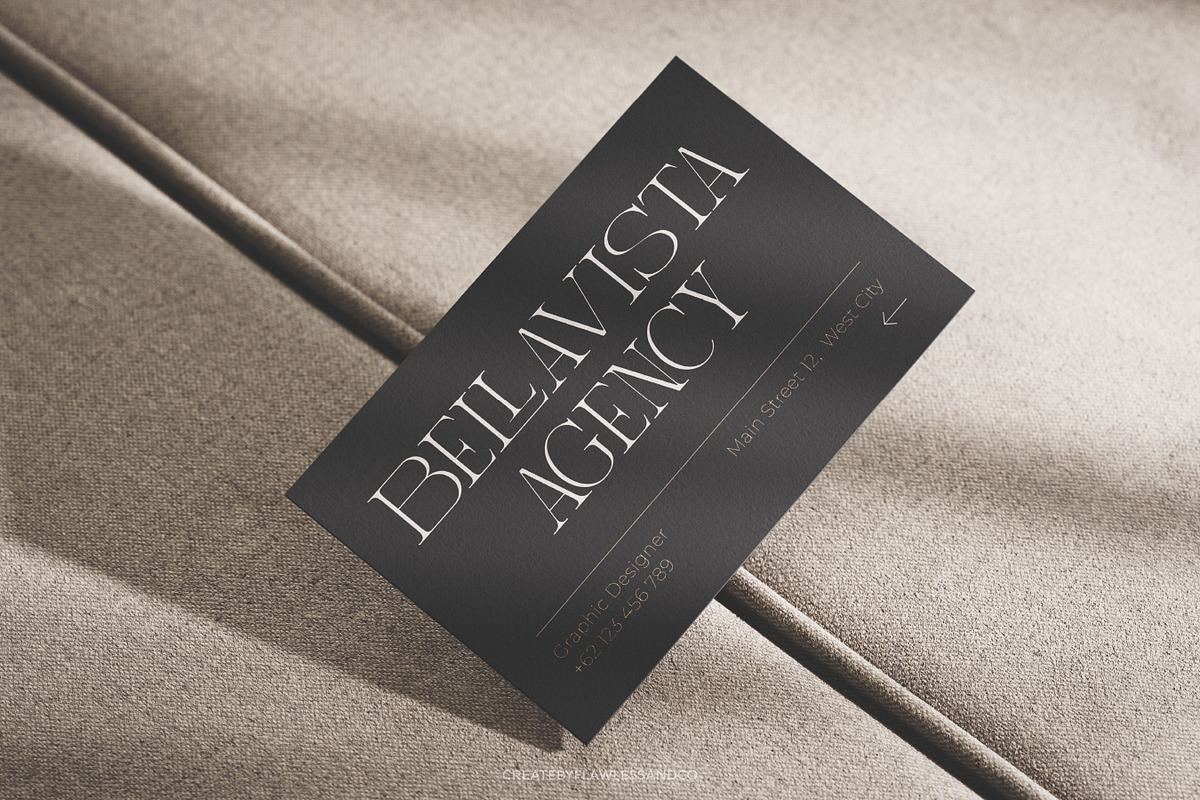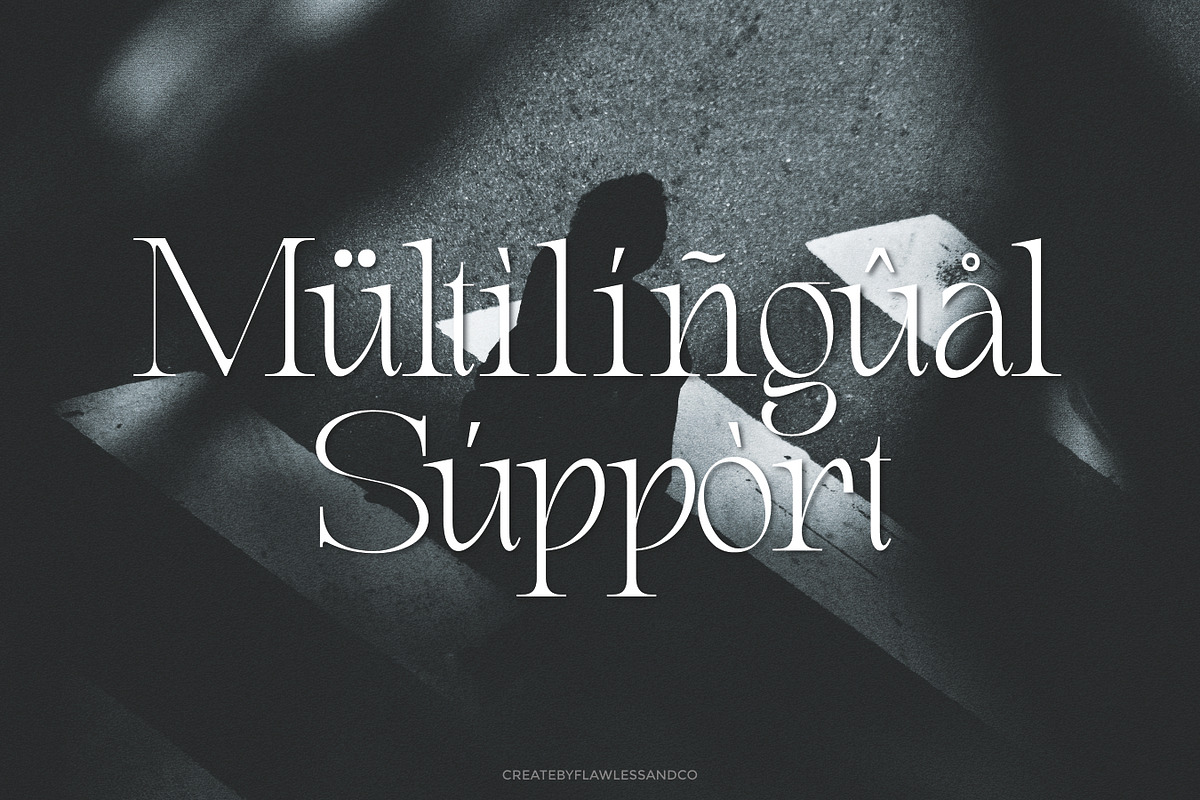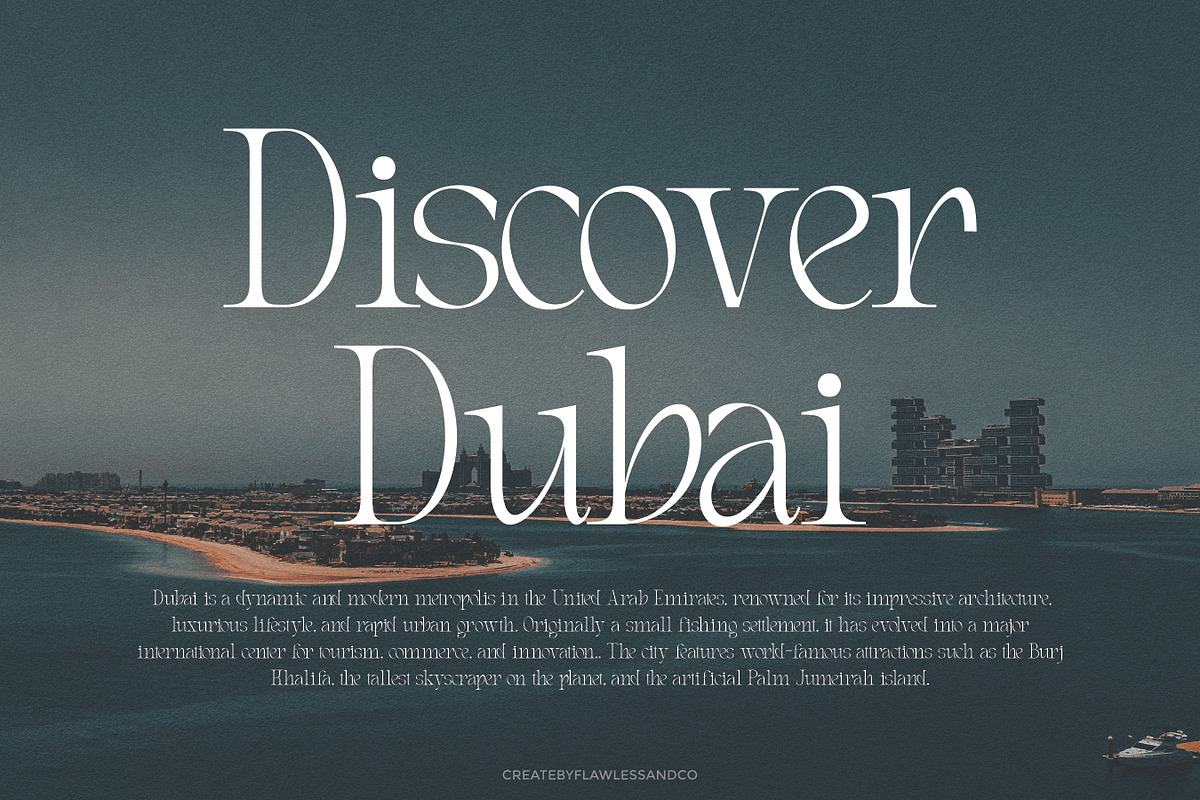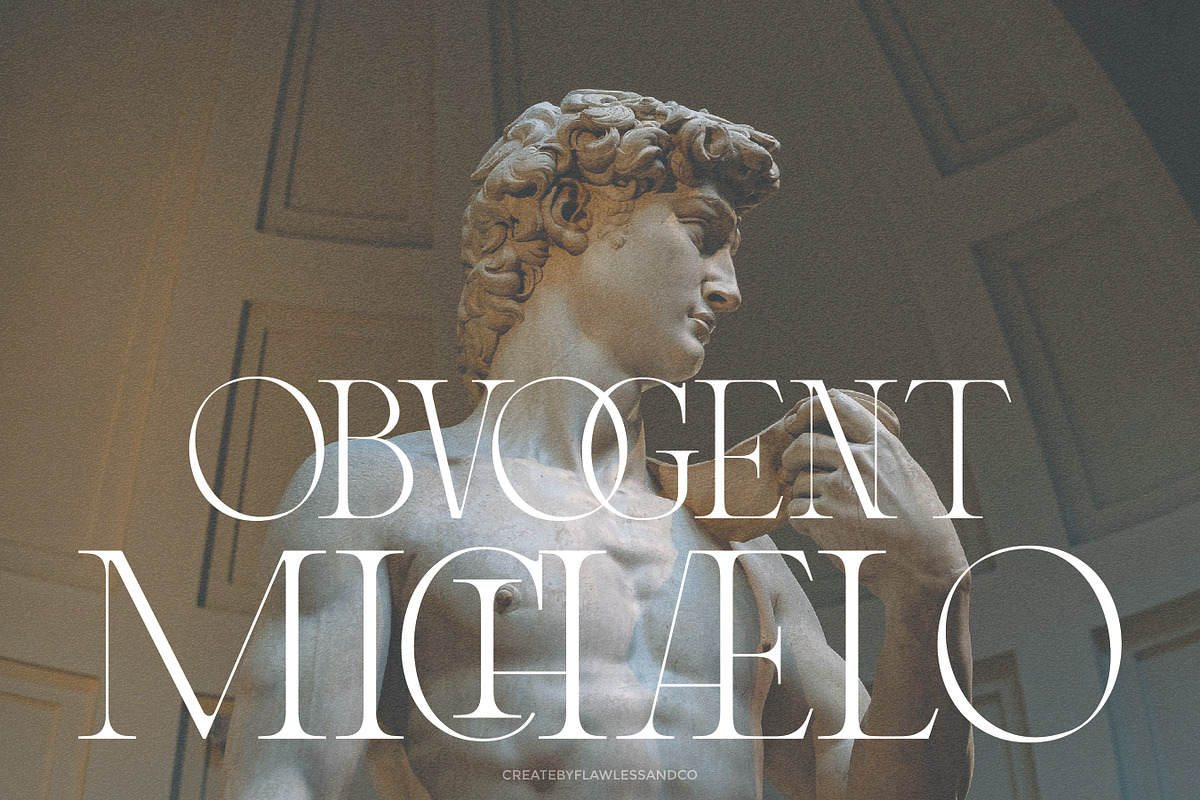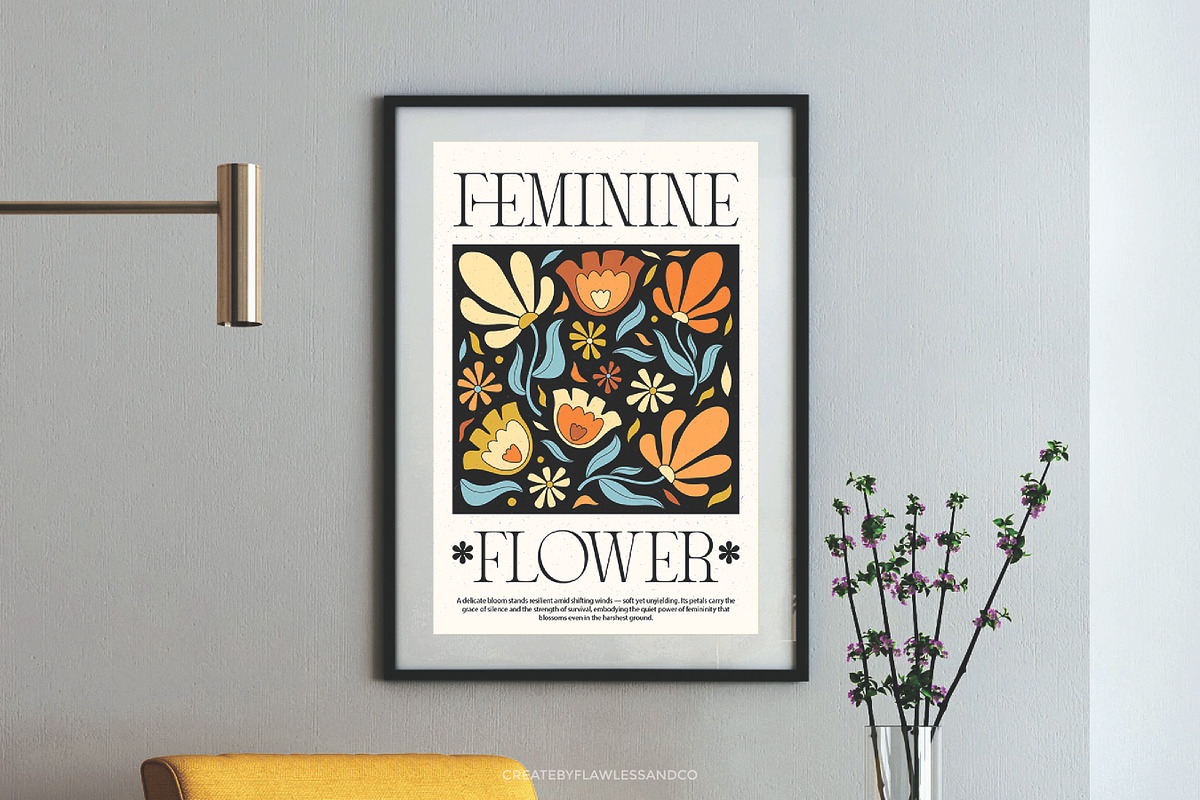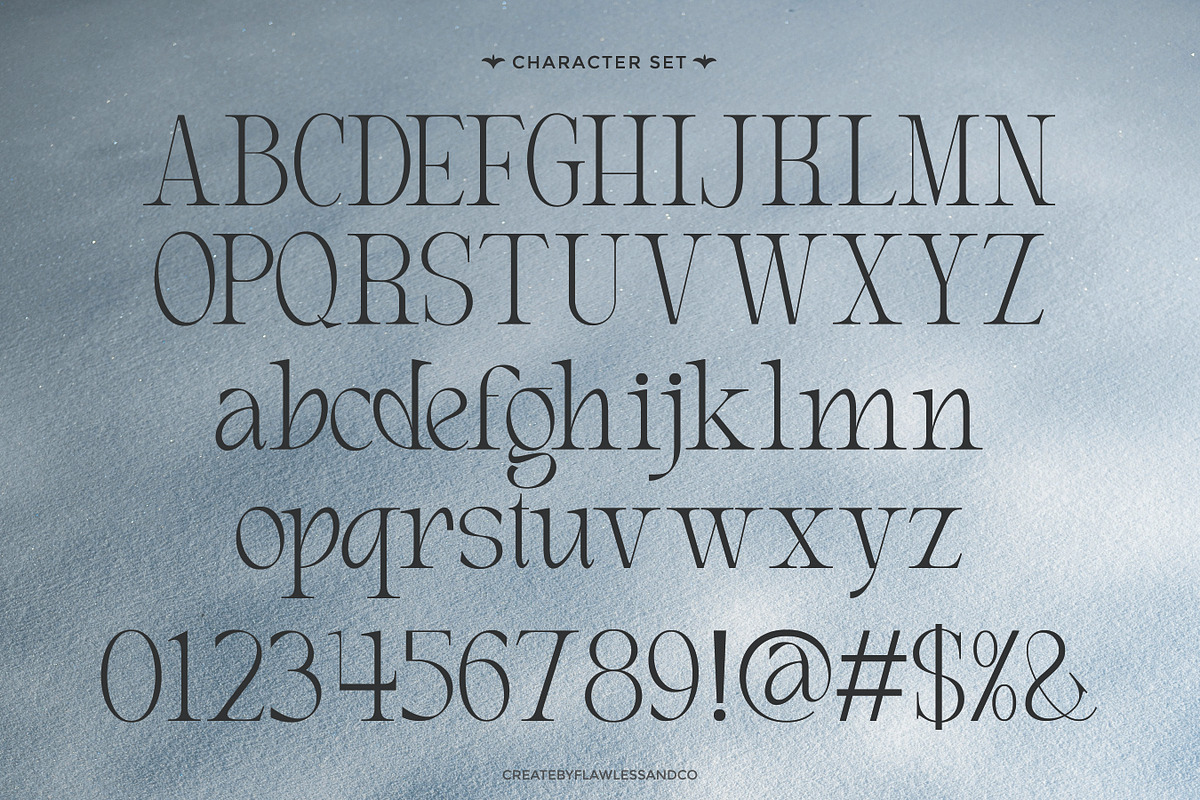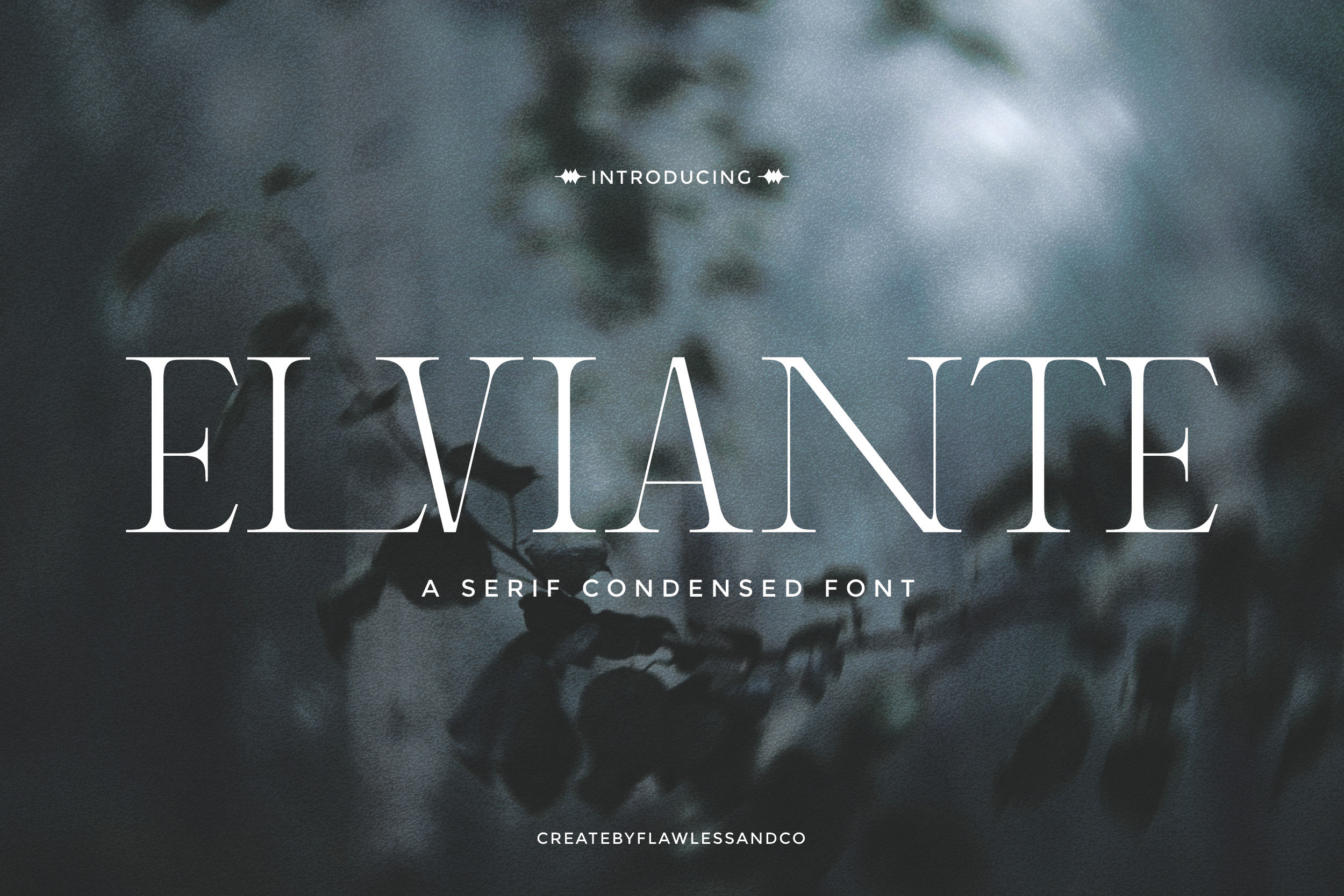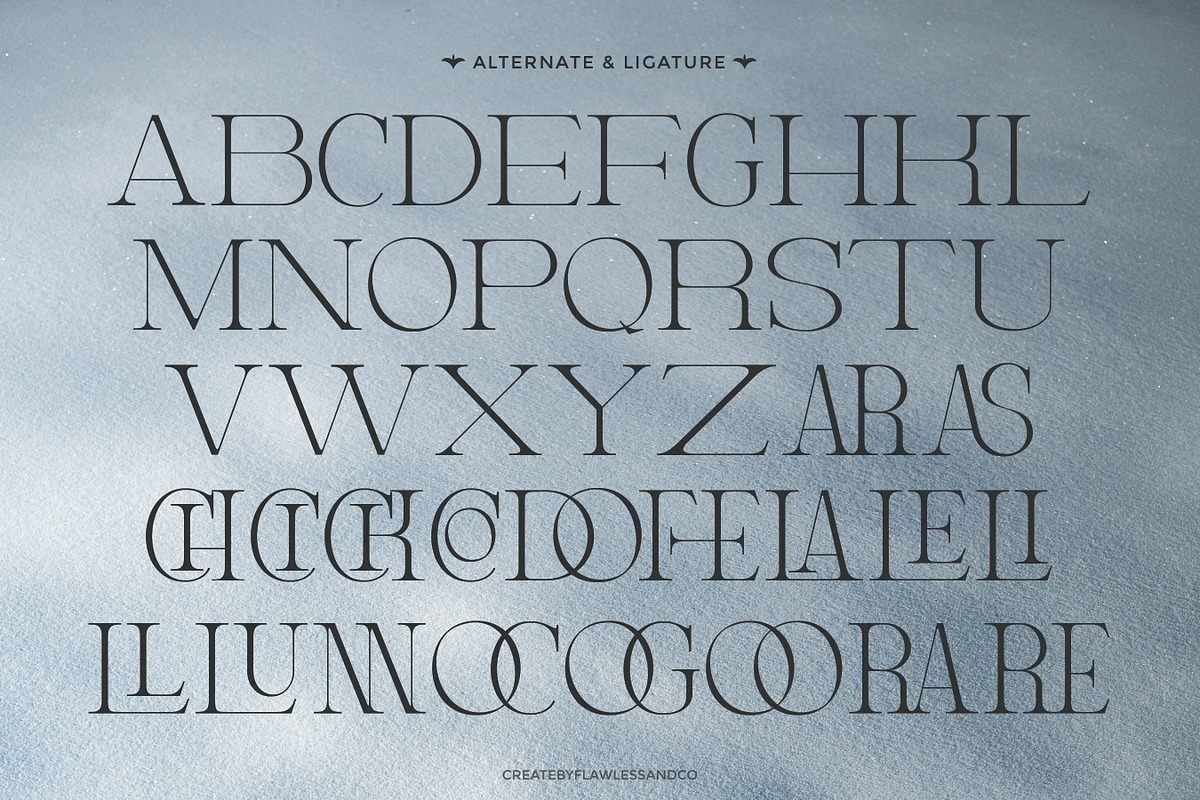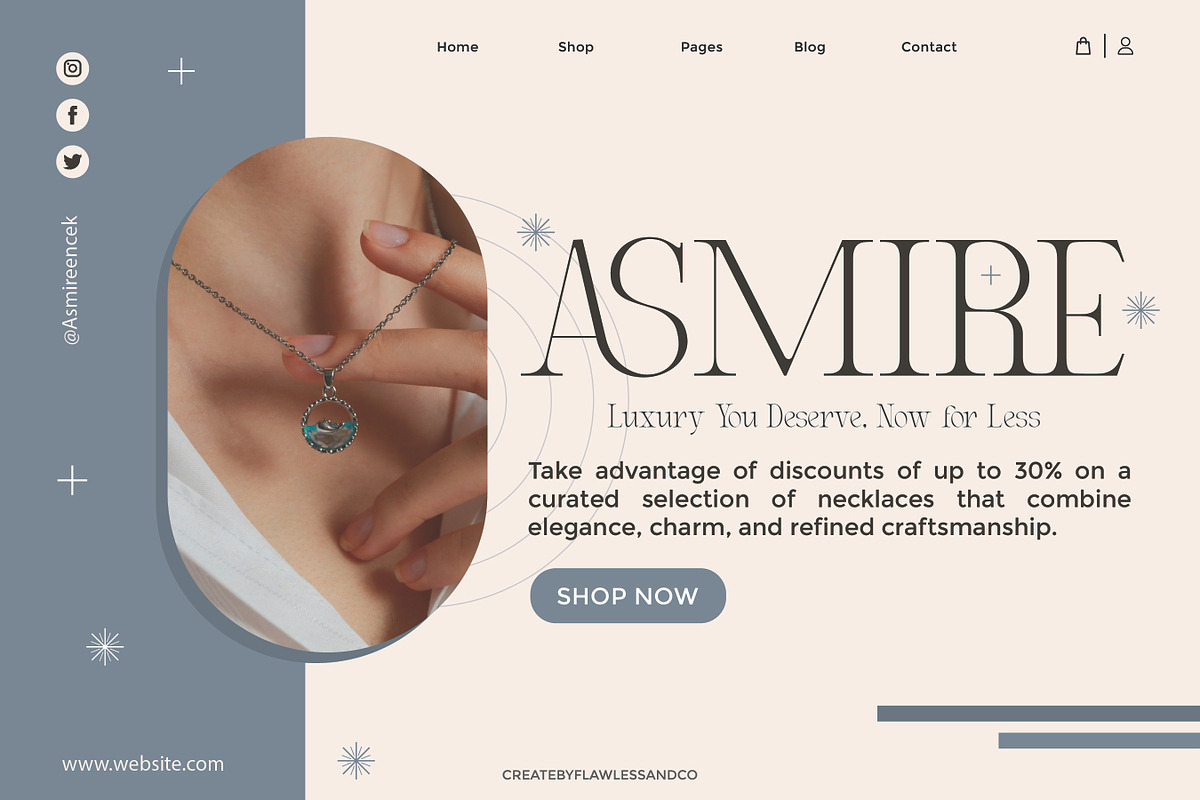
Elviante - Condensed Serif Font
ELVIANTE – Modern Condensed Serif Typeface
ELVIANTE is a refined condensed serif typeface that radiates elegance, precision, and confidence. Featuring high-contrast strokes, tall letterforms, and meticulously balanced spacing, ELVIANTE delivers a sophisticated look that instantly commands attention—without overpowering your design. Blending timeless serif tradition with a sleek modern structure, ELVIANTE is perfect for bold headlines, upscale branding, editorial layouts, luxury packaging, and fashion-forward visuals. Whether you're building a statement logo or crafting an elegant publication, this typeface brings both strength and allure to your project.
- Sharp contrast & condensed proportions
- Elegant serifs with a modern edge
- Versatile for logos, magazine covers, posters, and brand identities
- Ideal for fashion, editorial, luxury, and beauty-focused designs
Who Should Use ELVIANTE?
ELVIANTE is perfect for designers, creatives, and brands seeking a high-end, editorial look. Whether you're working on fashion magazines, luxury branding, packaging, social media campaigns, or modern logos, this typeface offers the elegance and precision needed to elevate your design. It’s an ideal choice for those who value sophistication, impact, and timeless beauty in their visual storytelling.
A Must-Have Font for Brand, Logo, and Wedding Card Creators and Designers
ELVIANTE is the perfect choice for creatives who design with elegance in mind. Whether you're crafting sophisticated brand identities, timeless logos, or romantic wedding cards, this serif condensed typeface adds a refined, stylish edge to every project.
Why Choose ELVIANTE for Brand, Logo, and Wedding Card Projects?
ELVIANTE stands out with its elegant condensed serif style that blends timeless sophistication with modern finesse. Its tall letterforms and graceful curves make it ideal for brand identities that aim to exude class and confidence. Whether you're designing a luxury logo, an editorial-style brand, or a romantic wedding invitation, ELVIANTE delivers visual impact with subtle charm. Its refined details and strong presence ensure your project feels polished, stylish, and memorable.
Suitable for:
- Brand identity
- Logo design
- Wedding invitations
- Editorial headlines
- Fashion lookbooks
- Product packaging
- Luxury stationery
- Business cards
- Monograms
- Social media posts